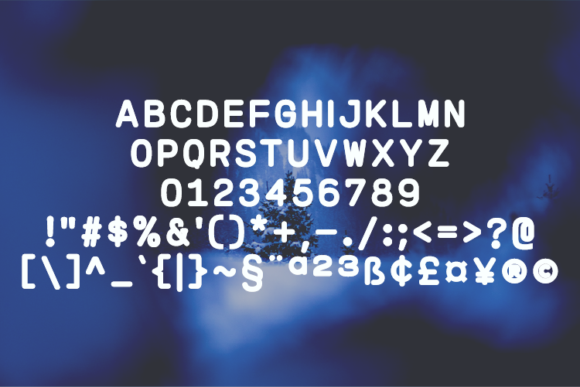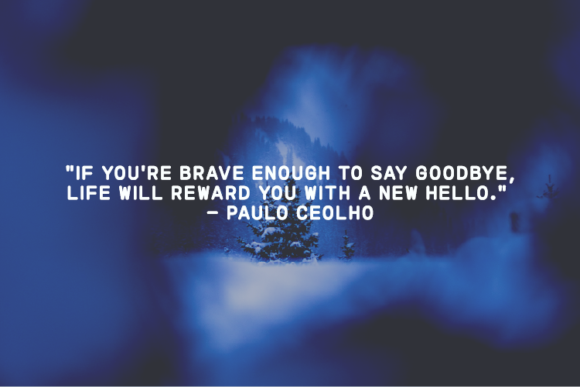
Introduction to Maghentha Font
Have you ever stared at a blank canvas, unsure of where to begin your next creative project? The blank page can be intimidating, but with the right tools, anything is possible. For designers, finding the perfect font can make all the difference in bringing a vision to life.
That’s where the Maghentha Font comes in – a bold and simple sans serif font that’s perfect for any branding, product packaging, or invitation. Its clean lines and minimalist aesthetic make it an ideal design resource for creative projects. Whether you’re working on a high-quality logo or designing a t-shirt, the Maghentha Font is sure to elevate your work.
What sets Maghentha Font apart is its versatility and ease of use. With a transparent background, you can easily layer it over any image or background, making it a valuable addition to any designer’s toolkit. And the best part? It’s available for free download, making it accessible to designers of all levels.
Key Features of Maghentha Font
- High-quality, vector-based font design for seamless scaling and customization.
- Transparent background, allowing for easy integration into various creative project backgrounds.
- Designed to be a versatile design resource, suitable for various creative projects, including logos, typography, and graphics.
Honest Review: Maghentha Font
I recently had the chance to work with the Maghentha Font, and I’m excited to share my thoughts on this design resource. Overall, I was impressed with the quality and versatility of this font.
- High-quality design that’s perfect for creative projects.
- Transparent background makes it easy to use on any color scheme.
- Wide range of styles and weights to suit different design needs.
- ⚠️ Some users may find the font too ornate for certain design projects.
Overall, I’m impressed with the Maghentha Font. It’s a solid addition to any designer’s toolkit, and its high quality and versatility make it a great resource for creative projects. With a few minor limitations to keep in mind, I’d definitely recommend giving it a try.
Common Use Cases for Maghentha Font
The Maghentha Font is ideal for use in creative projects such as branding, marketing materials, and editorial designs. Its high-quality features and transparent background make it a versatile design resource for various industries and applications.